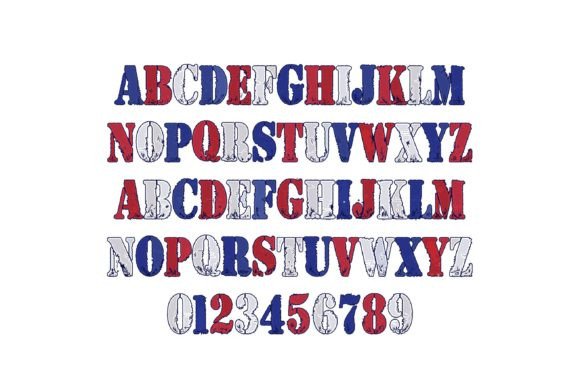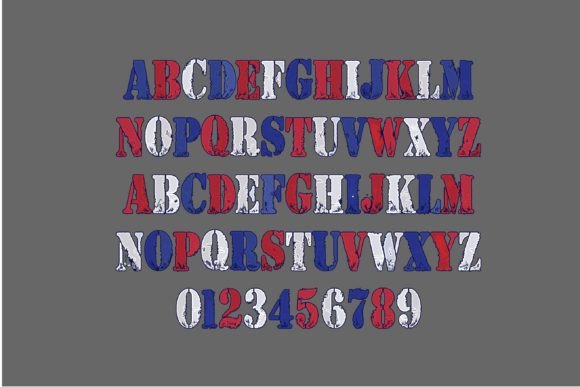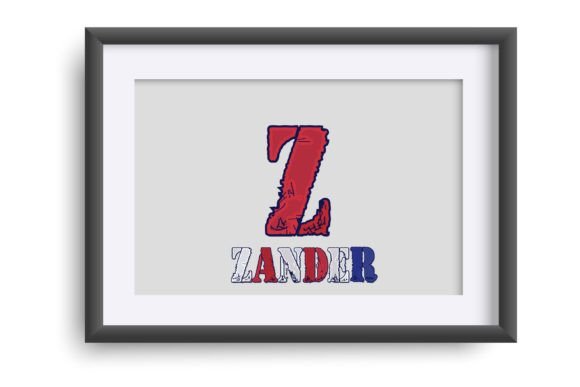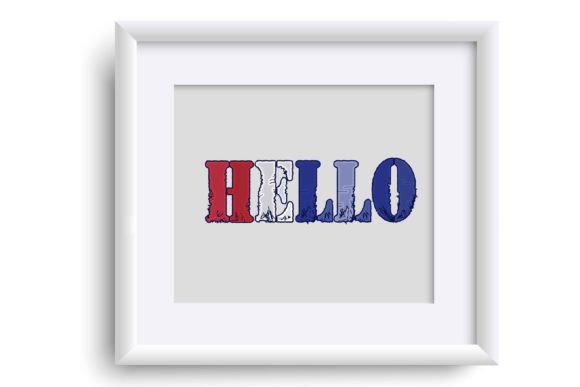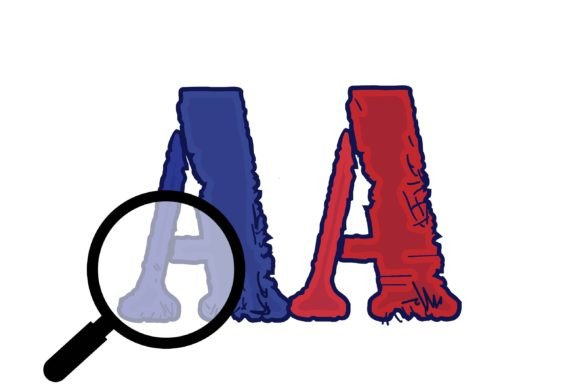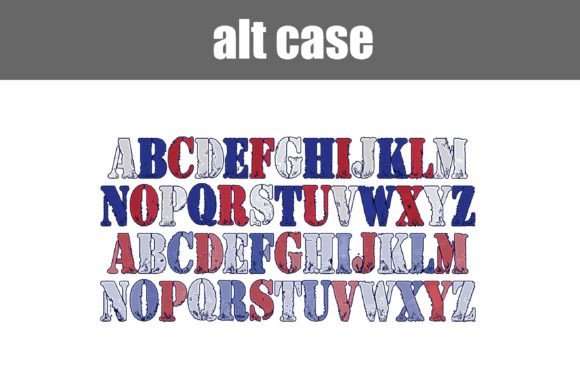
Introduction to Freedom Rings Font
Do you remember that moment when you finally found the perfect font to bring your creative project to life? The one that perfectly captured the essence of your design, making it stand out from the crowd? For designers, finding the right font can be a game-changer, and that’s exactly what the Freedom Rings Font is designed to do.
This stunning full-color font is a masterclass in patriotic design, featuring a grungy stencil style that’s perfect for titles, displays, and posters. With its high-quality, transparent background, you can be sure that your design will shine through. Plus, with an alt case offering additional colors, you can take your design to the next level. Whether you’re a seasoned designer or just starting out, the Freedom Rings Font is a valuable design resource that’s sure to inspire your next creative project.
Key Features of Freedom Rings Font
- Unique characteristics include a bold, modern design and a customizable color scheme, allowing users to tailor the font to their project’s aesthetic.
Honest Review: Freedom Rings Font
As a designer, I’m always on the lookout for high-quality design resources to enhance my creative projects. Recently, I stumbled upon the Freedom Rings Font, and I’m excited to share my honest review.
What works well: ✨ The Freedom Rings Font is a beautifully crafted font that exudes a sense of freedom and joy. It’s perfect for designing promotional materials, social media graphics, or even wedding invitations. The font is available for free download, making it a great addition to any designer’s toolkit.
What I love most about this font is its versatility. It’s suitable for a wide range of creative projects, from modern and sleek to vintage and elegant. The transparent background option also gives me the flexibility to customize the font to fit my design needs.
Limitations: ⚠️ While the Freedom Rings Font is a great resource, I do wish it had more variations in terms of font sizes and styles. Additionally, the font may not be suitable for formal or professional designs due to its playful and whimsical nature.
Overall, I’m impressed with the Freedom Rings Font and would recommend it to designers looking for a high-quality, free design resource. With its versatility and transparent background option, it’s a great addition to any design arsenal.
Design Features:
- Suitable for creative projects
- Perfect for modern and vintage designs
Tips for Getting the Most Out of the Freedom Rings Font
1. Use the font with a transparent background for a more subtle look.
2. Experiment with different font sizes and styles to add visual interest to your design.
1. Designing patriotic-themed graphics and posters.
2. Creating social media graphics and ads.
3. Developing branding materials and logos.